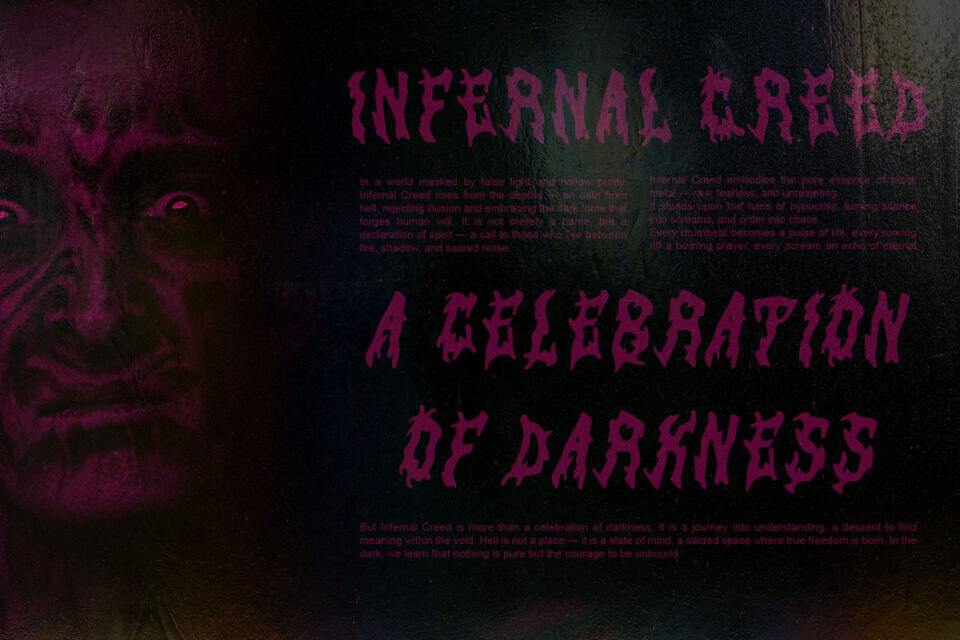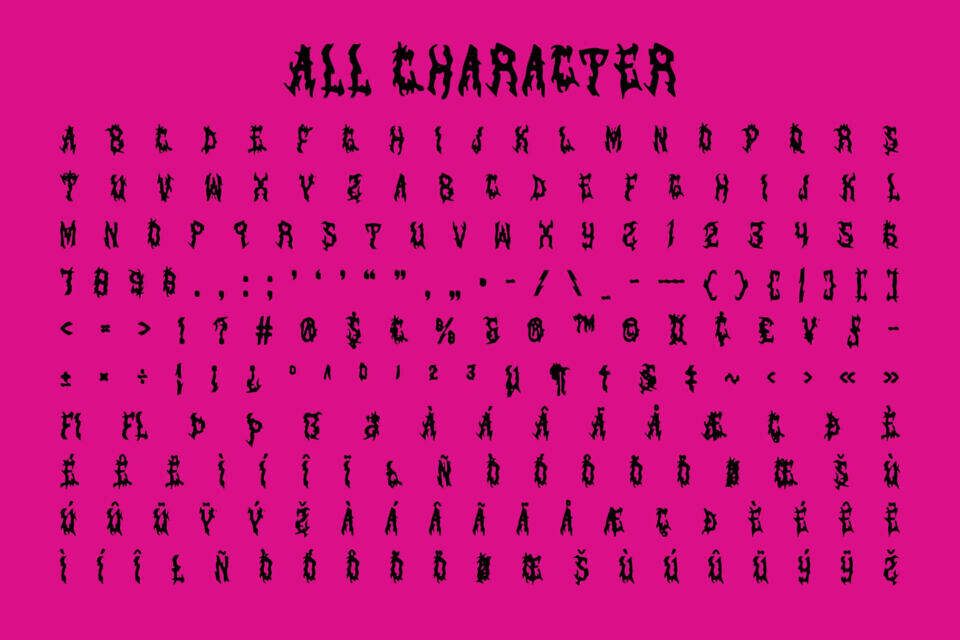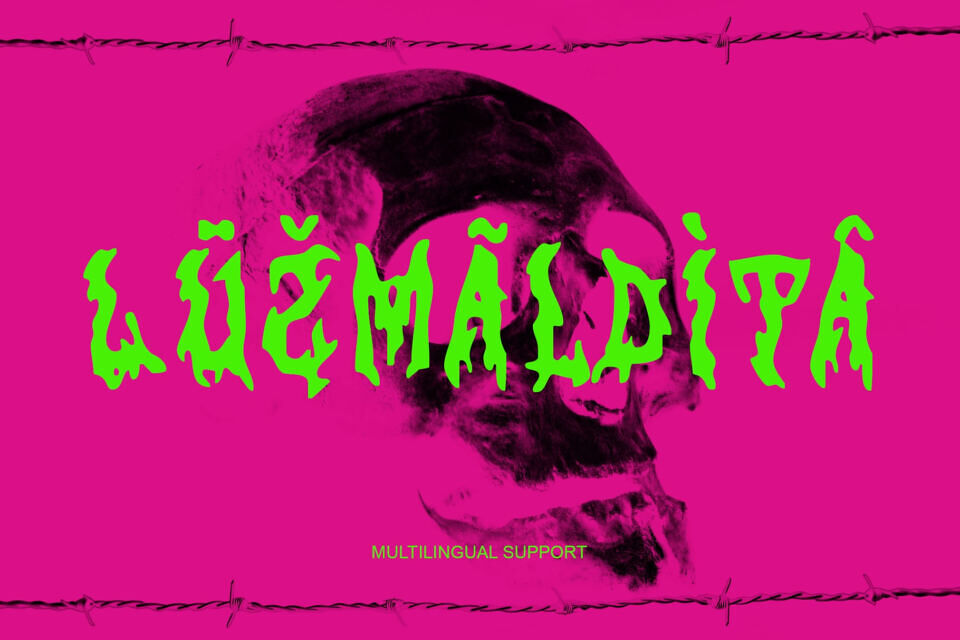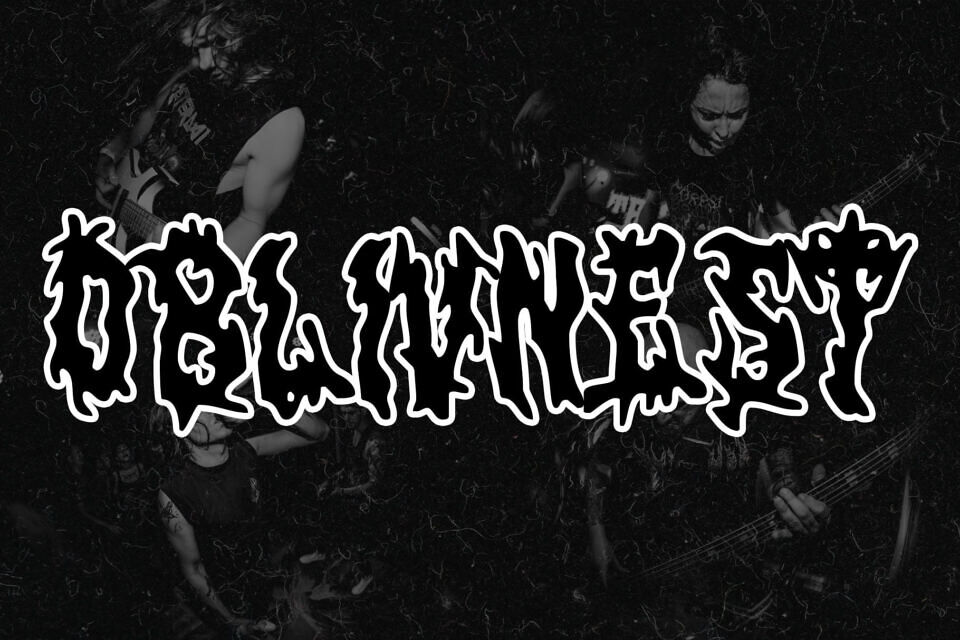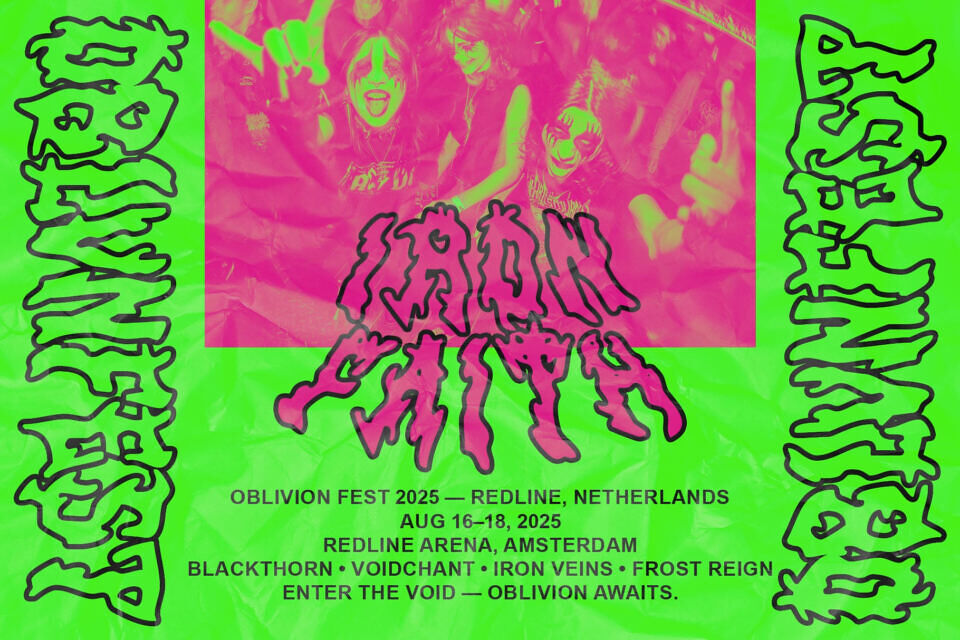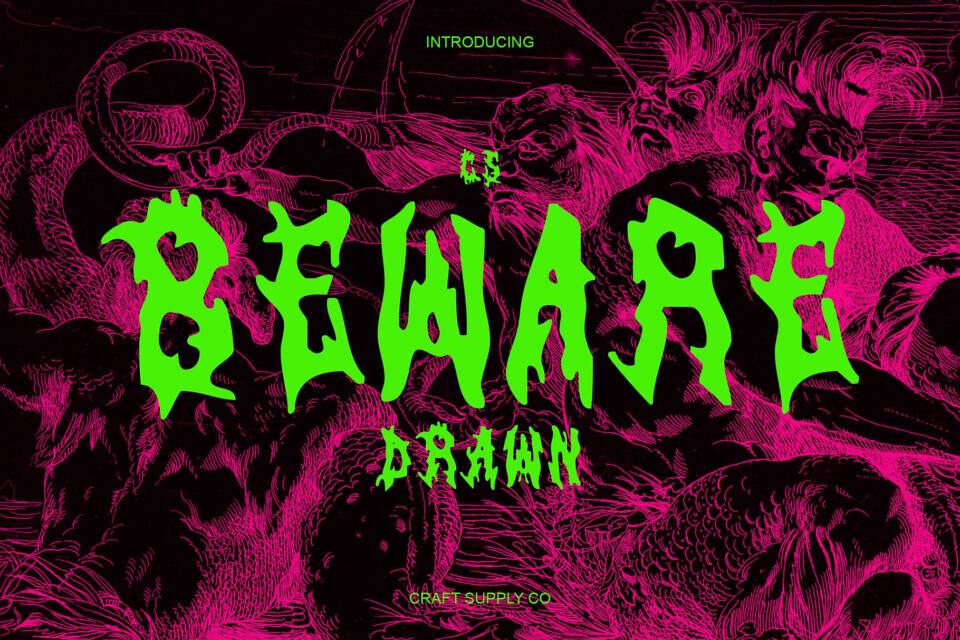
Cs Beware Drawn Font
This is a raw and powerful black metal font defined by jagged spikes, chaotic strokes, and intense visual rhythm. Each letter exudes aggression and darkness, perfectly embodying the rebellious spirit of extreme music and underground culture.
The drawn touch enhances its wild and untamed energy, giving the font an artistic, handcrafted feel. This textured detail adds authenticity and depth, transforming its chaotic forms into a visually compelling display of artistic rebellion.